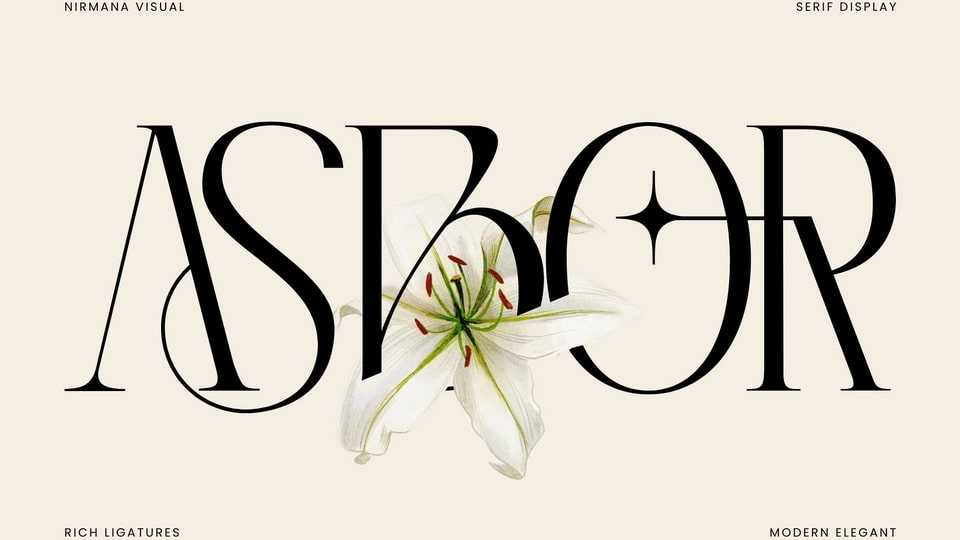
Download Asbor Fashion font, a masterpiece of typography that embodies the quintessence of luxury and elegance. This font is meticulously crafted to exude a sense of opulence, sophistication, and timeless beauty.